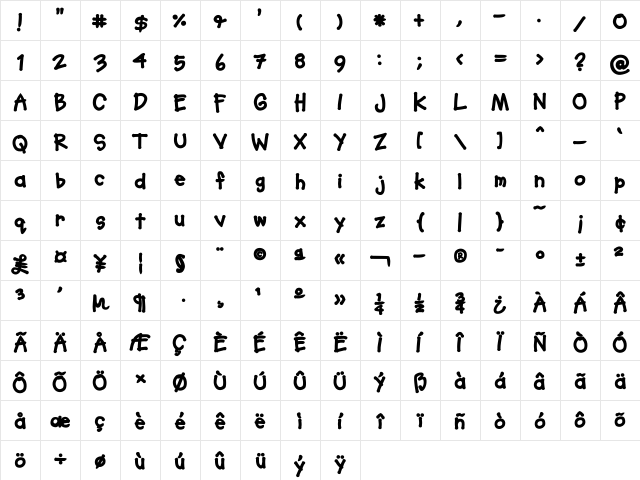
SoupBone ExtraBold Free Font
SoupBone ExtraBold
SoupBone Family
SoupBone ExtraBold
Complete SoupBone ExtraBold glyph index. Displaying only characters natively supported by SoupBone ExtraBold font.
Design Context for SoupBone
SoupBone is a composed and adaptable typeface that performs quietly and consistently across a wide range of design contexts. Its bold stroke weight gives it real presence on the page.